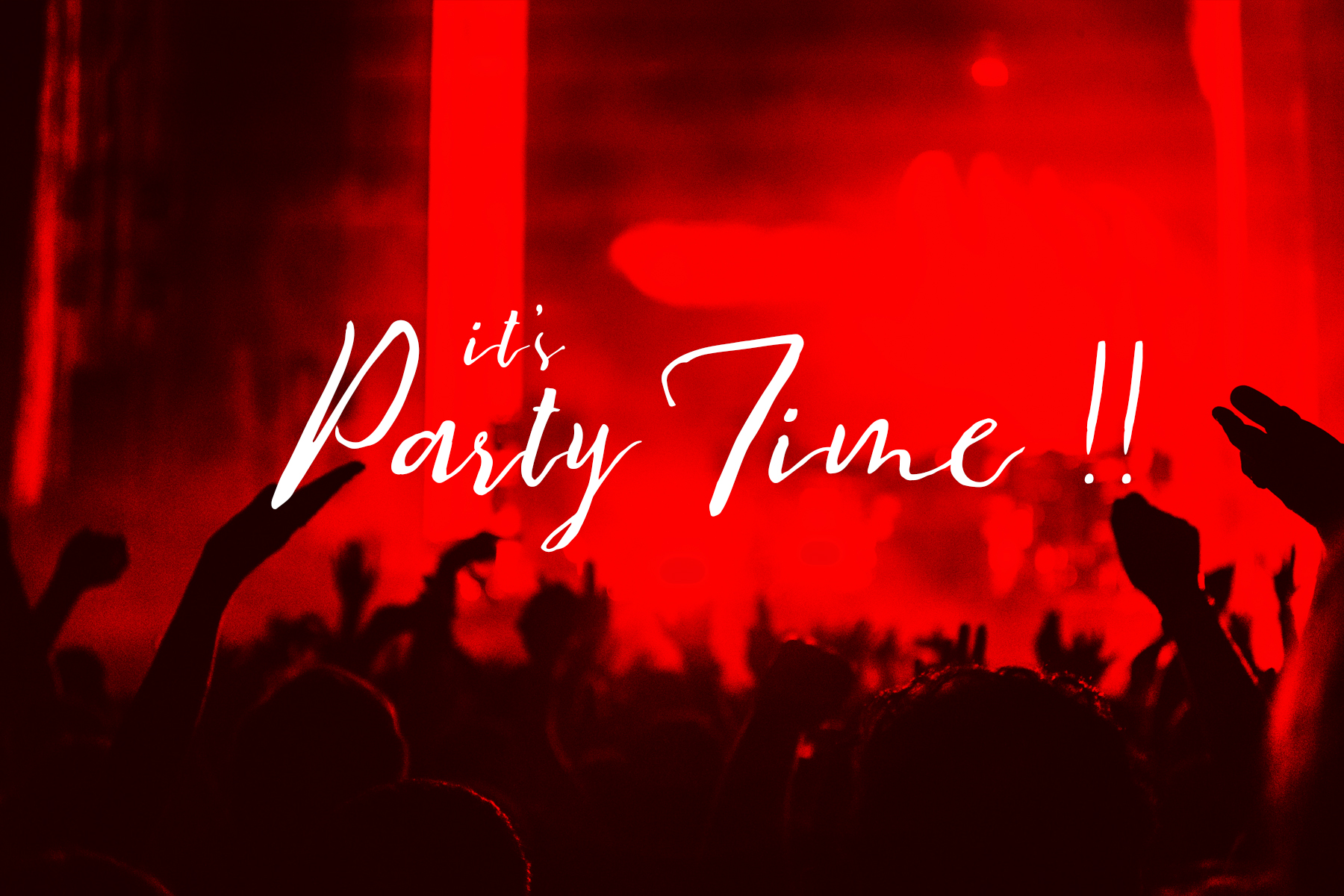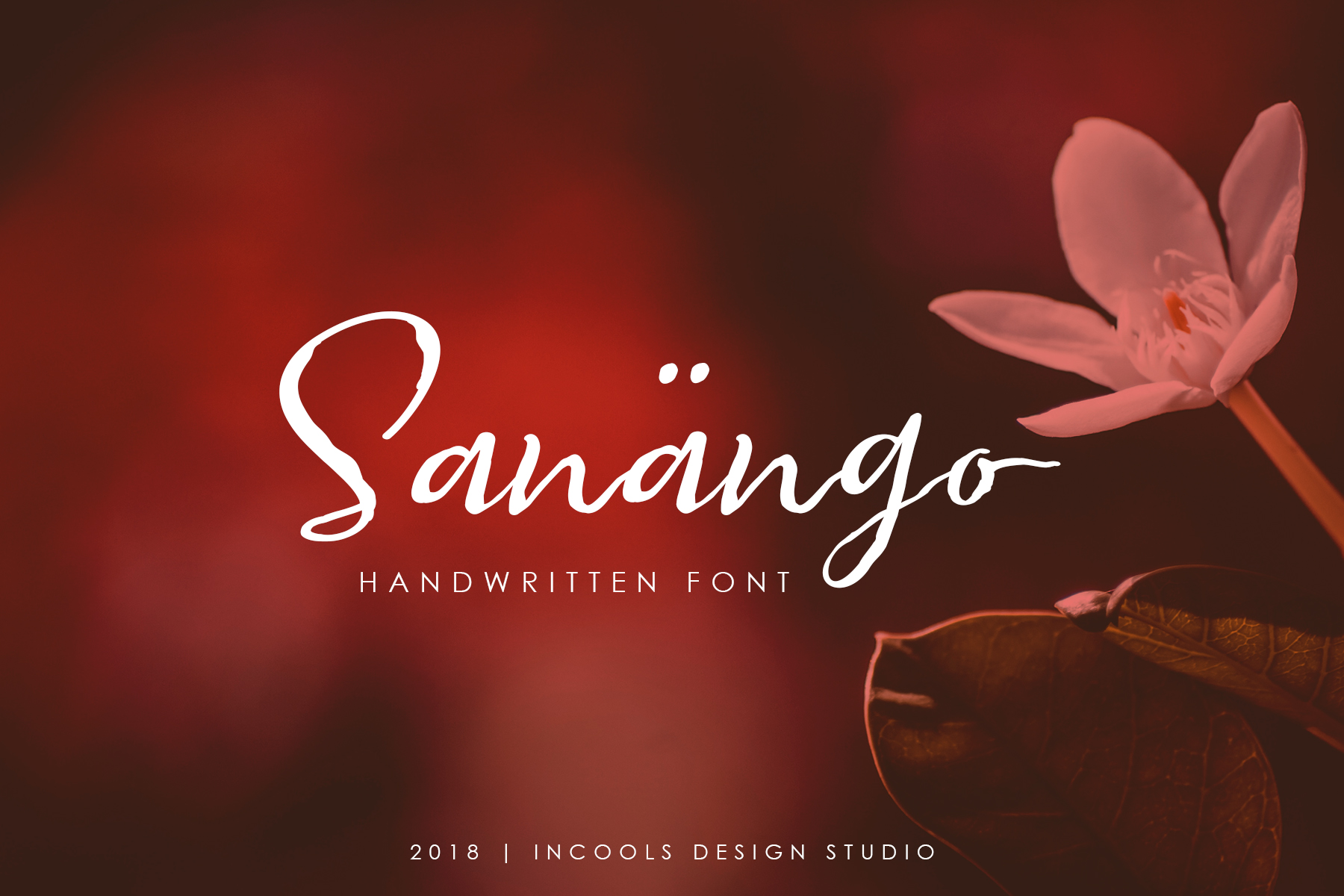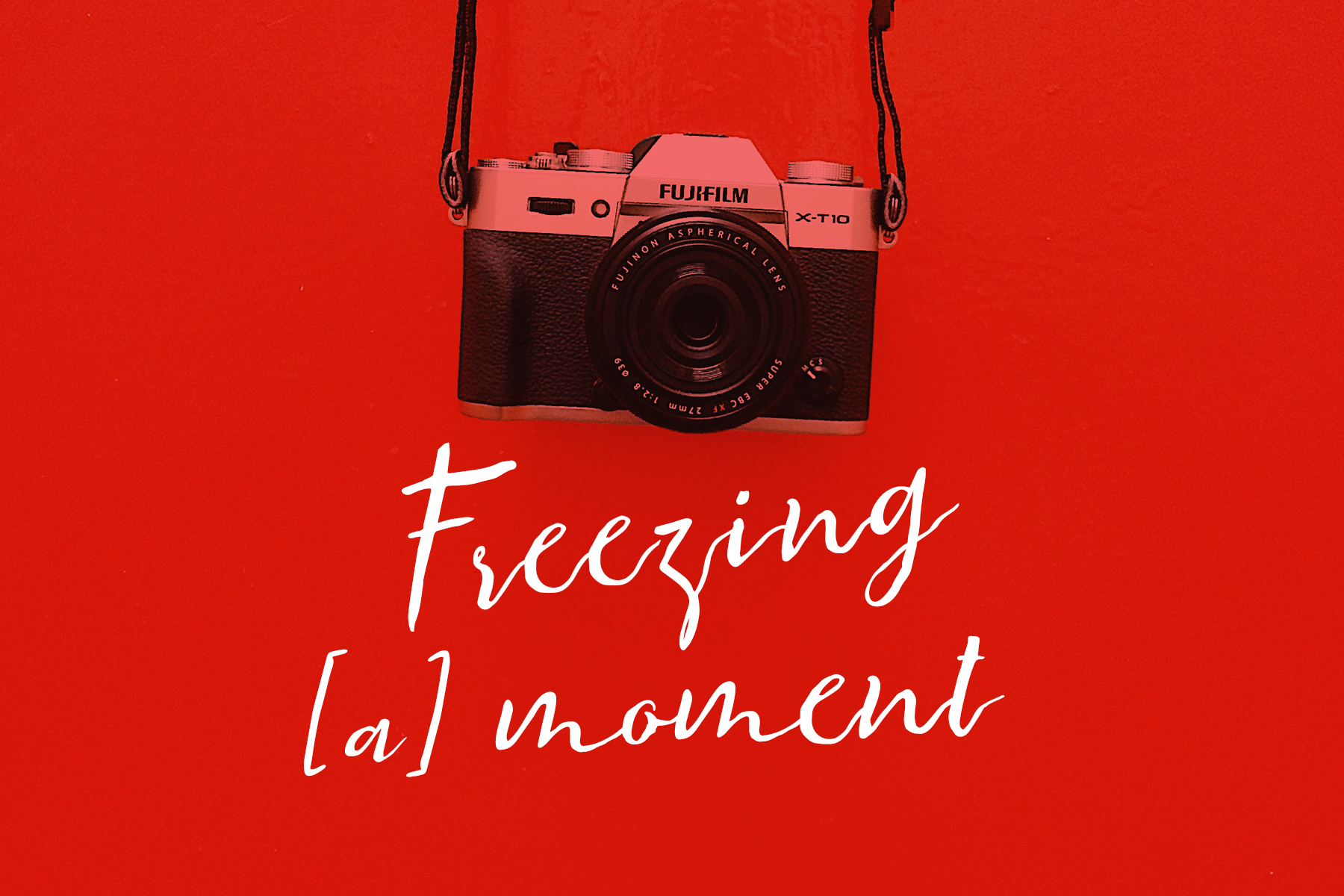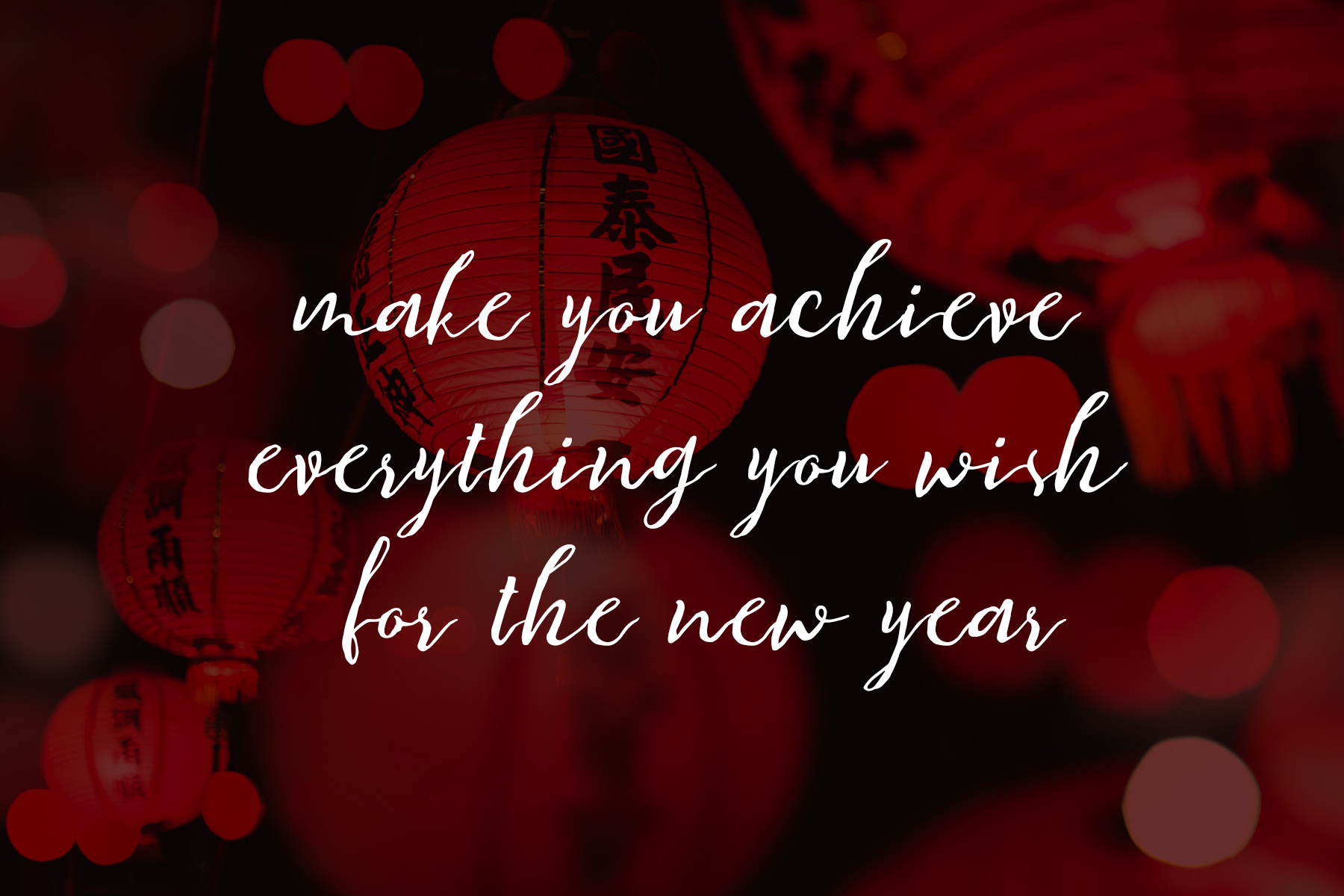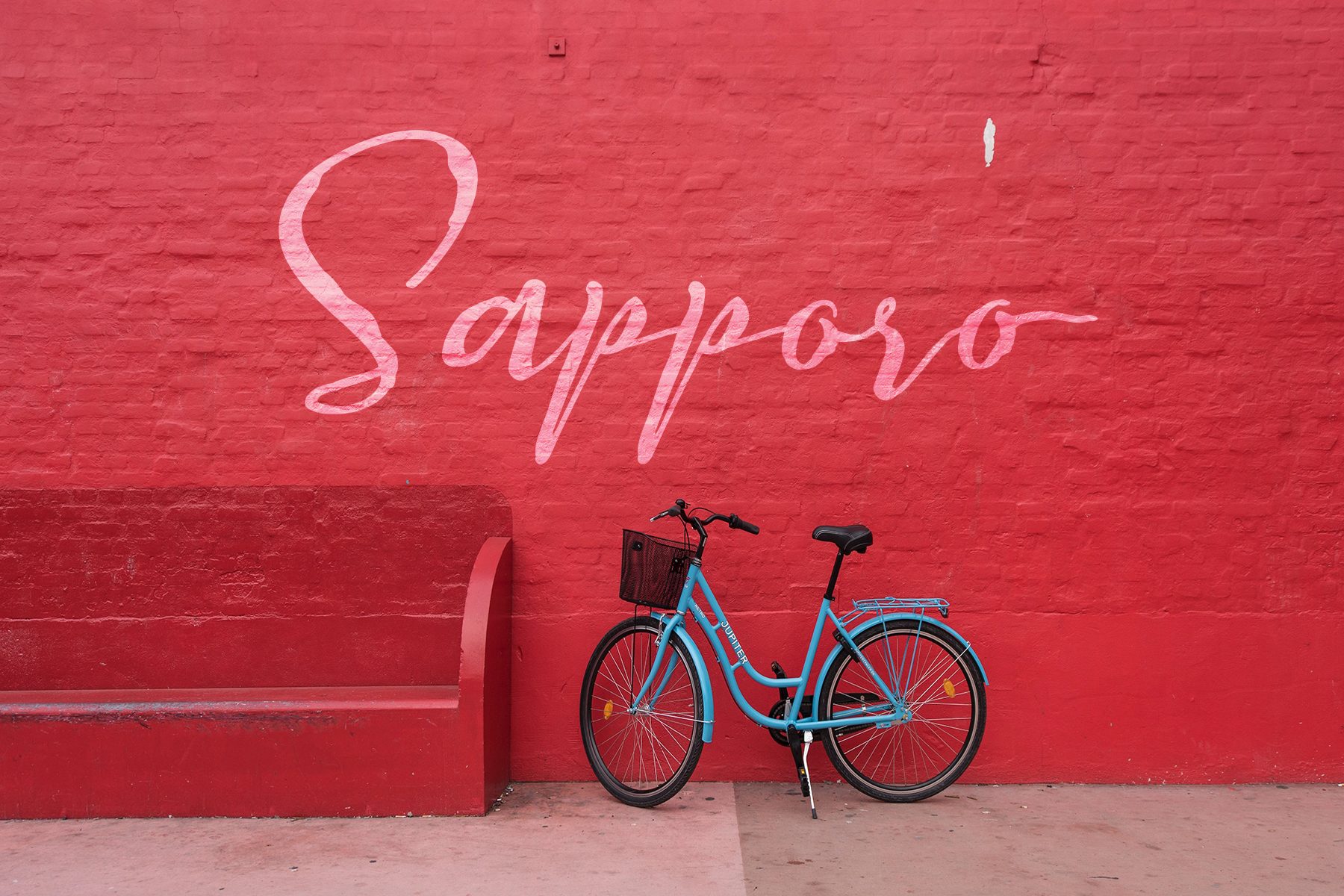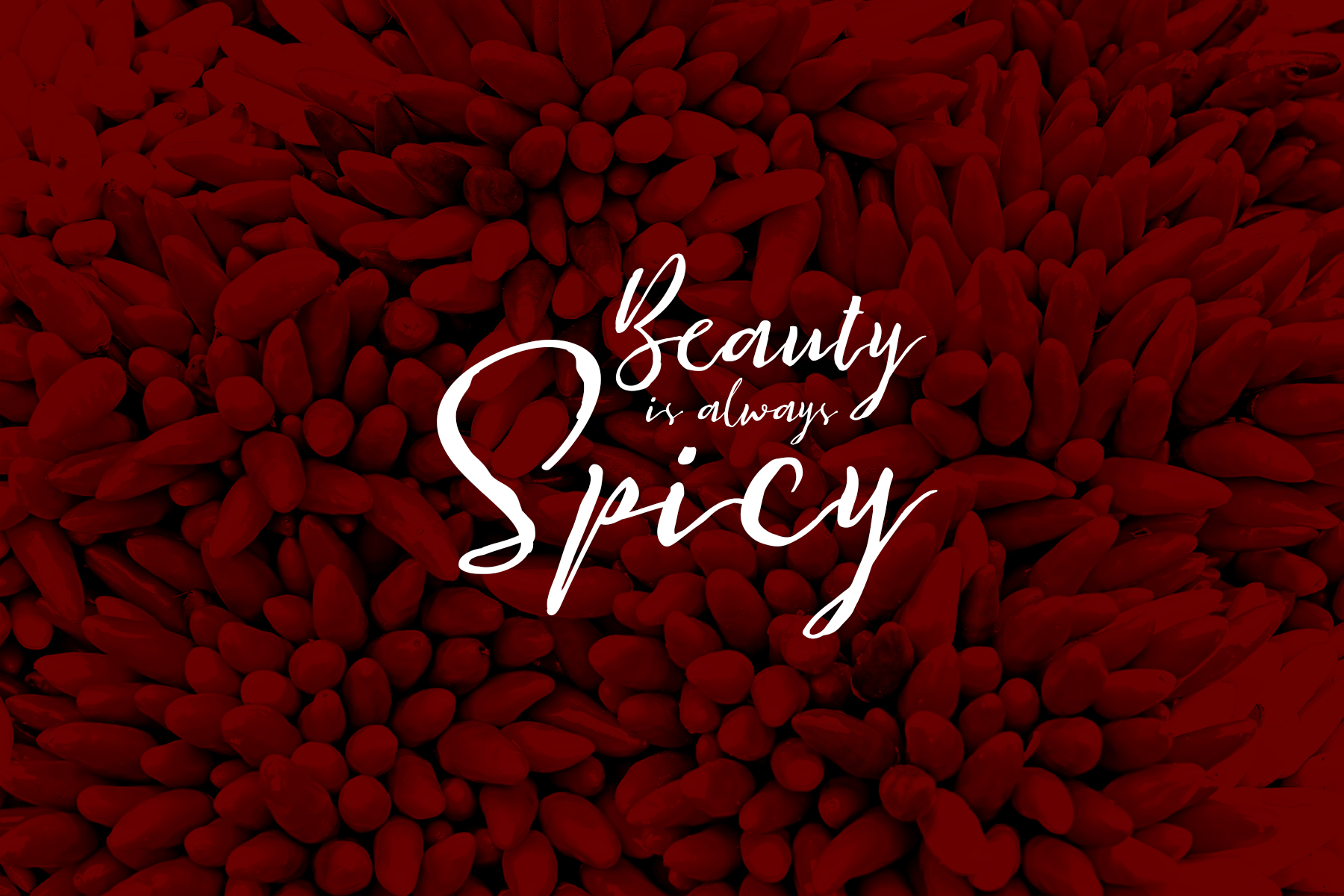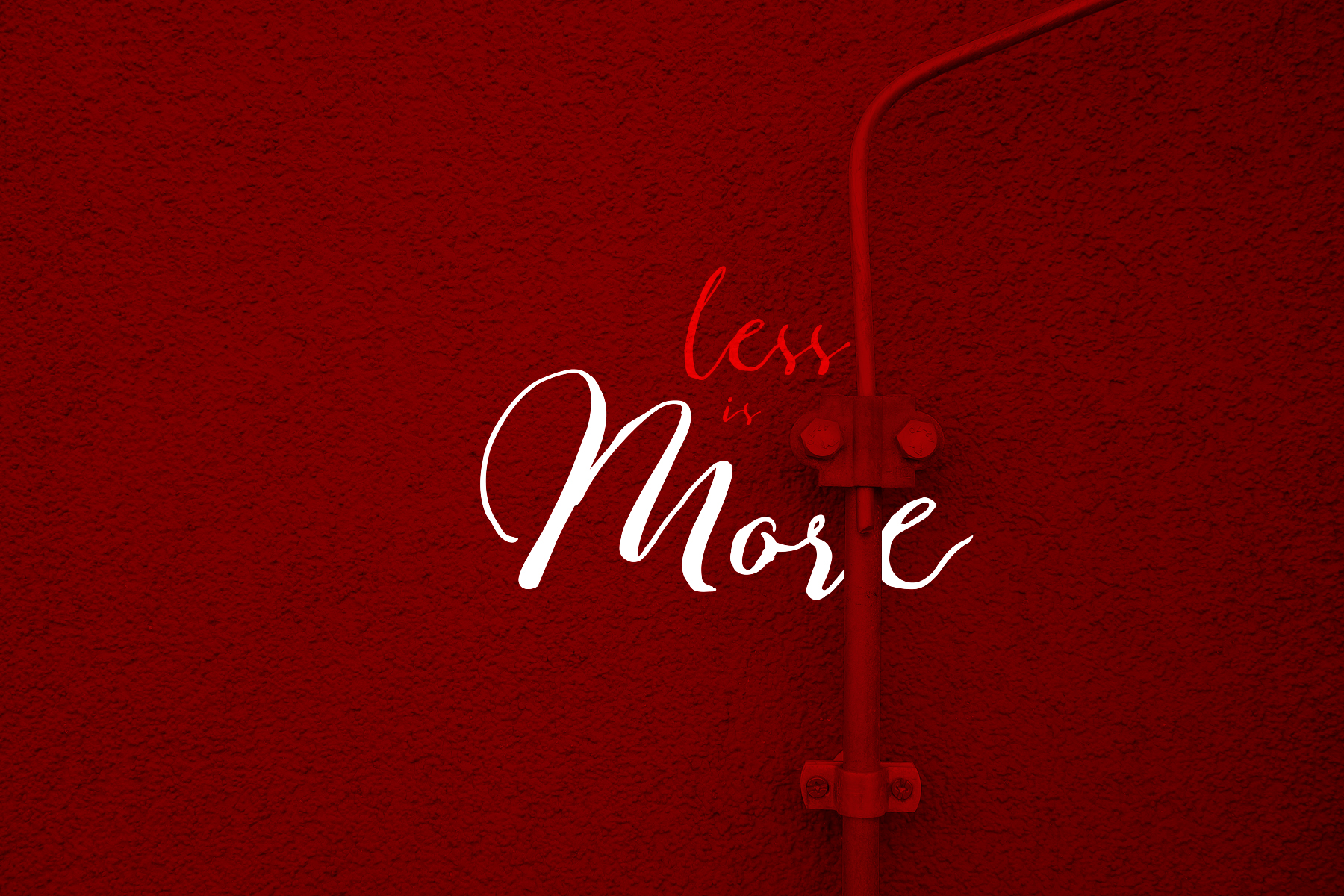
HomeScript FontsSanango Font Script Fonts Sanango Font FacebookXPinterestWhatsApp Sanango Font Poster 2 Sanango Font Poster 3 Sanango Font Poster 4 Sanango Font Poster 5 Sanango Font Poster 6 Sanango Font Poster 7 Sanango Font Poster 8 About Sanango Font Sanango, a handwritten font inspired by a plant from the deep forests in Peru. DOWNLOAD NOW People also explored Manthilde Konttera Font Good Smells Font Khalifa Font Cuddlebug Font Florateris Script Font Hello Crystal Font Triad Monograms Inside Mistery Font Beillia Font 298 0 TagsSanango Font Previous articleFirst Dance FontNext articleWaklidy Font LEAVE A REPLY Cancel reply Comment: Please enter your comment! Name:* Please enter your name here Email:* You have entered an incorrect email address! Please enter your email address here Website: Save my name, email, and website in this browser for the next time I comment. Personal Use Free Whoa Personal Use Free Read more about this font Love Memories Personal Use Free Read more about this font Valentine Chips Personal Use Free Read more about this font The Relapse Personal Use Free Read more about this font BLOG 5 Fonts That Will Dominate Design Trends in 2026 5 Fonts for 2026 That Will Dominate Design Trends Typography plays a critical role in visual communication, and as we look ahead to 2026, it’s... The 10 Best Handwriting Fonts to Add Personality to Your Designs Transform Your Website: Elevate Your Typography with 7 Best Web Font Generators Elegant Wedding Invitation Fonts – Handwritten & Script Fonts